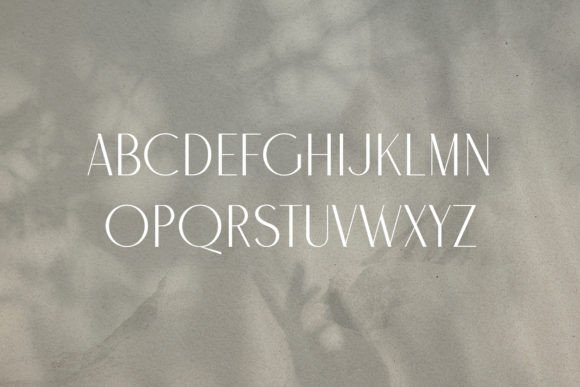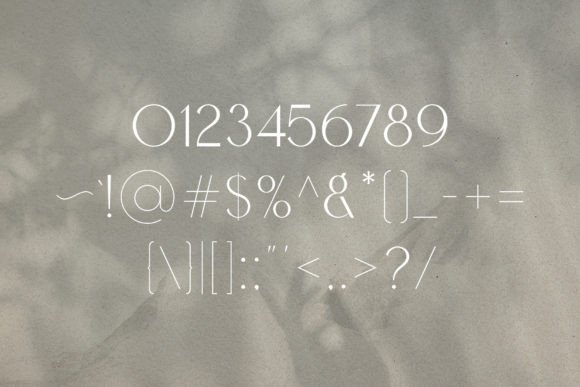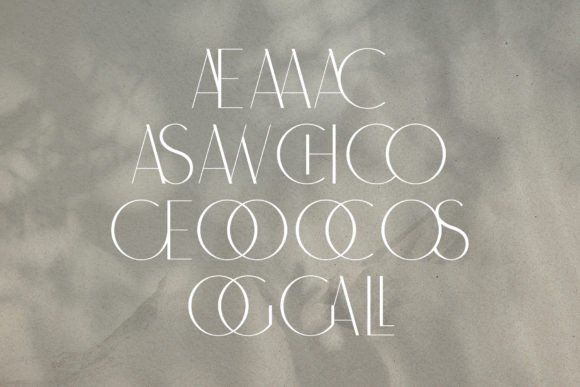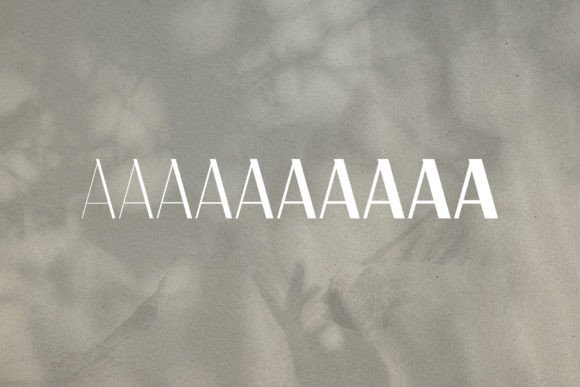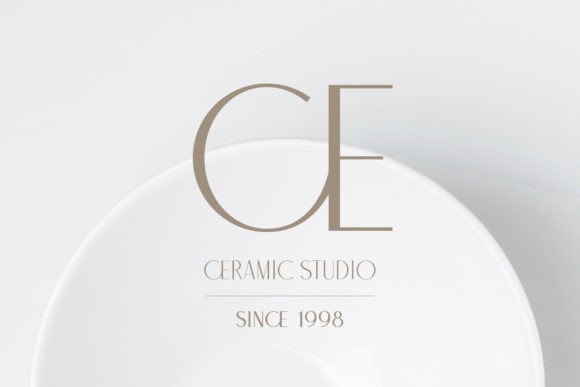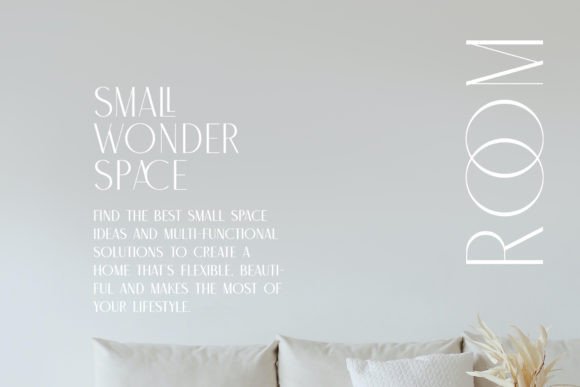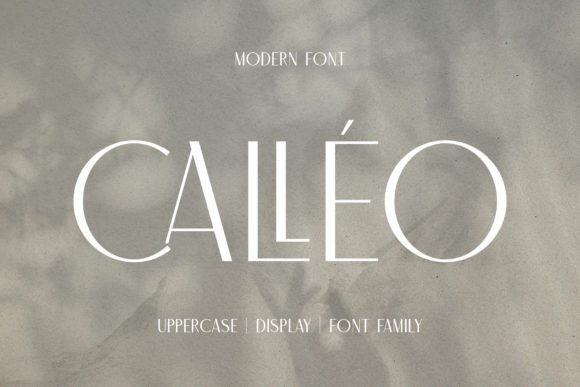
Calleo Font: A Minimalist and Feminine Typeface for Modern Designs
In the world of typography, font choices can make or break a design. For designers and crafters looking for a typeface that exudes elegance, sophistication, and a touch of femininity, Calleo Font is an excellent choice. This minimalist and contrasting font is perfect for creating stunning logos, short words, and even long sentences. In this article, we’ll dive into the characteristics, uses, and benefits of Calleo Font, and explore why it’s a great addition to any designer’s toolkit.
The Characteristics of Calleo Font
Calleo Font is a very minimalist and contrasting typeface, which means it features clean lines, simple shapes, and a high level of contrast between thick and thin strokes. This contrast gives Calleo its unique and elegant appearance, making it perfect for designs that require a touch of sophistication. The font’s minimalist nature also makes it highly versatile, allowing it to be used in a variety of design contexts, from logos and branding to body text and headlines.
Feminine and Strong Character
One of the standout features of Calleo Font is its feminine and strong character. The font’s curves and lines are carefully crafted to create a sense of elegance and refinement, making it perfect for designs that require a touch of femininity. At the same time, Calleo’s strong character ensures that it remains legible and impactful, even at smaller font sizes. This balance of femininity and strength makes Calleo an excellent choice for designers looking to create designs that are both beautiful and effective.
Uses of Calleo Font
Calleo Font is a highly versatile typeface that can be used in a variety of design contexts. Here are some of the most popular uses of Calleo Font:
- Logos and Branding: Calleo’s minimalist and contrasting nature makes it perfect for creating stunning logos and branding materials. Its elegance and sophistication ensure that it stands out in a crowded market, while its legibility ensures that it remains effective.
- Short Words and Headlines: Calleo’s clean lines and simple shapes make it perfect for short words and headlines. Its high contrast between thick and thin strokes creates a sense of drama and impact, making it perfect for grabbing attention.
- Long Sentences and Body Text: While Calleo is optimized for short words and headlines, it can also be used for long sentences and body text. Its legibility and readability ensure that it remains effective even at smaller font sizes.
Benefits of Using Calleo Font
So why should designers and crafters choose Calleo Font for their next project? Here are some of the benefits of using Calleo Font:
- Elegance and Sophistication: Calleo’s minimalist and contrasting nature gives it an elegance and sophistication that’s hard to find in other fonts.
- Versatility: Calleo’s highly versatile nature makes it perfect for a variety of design contexts, from logos and branding to body text and headlines.
- Feminine and Strong Character: Calleo’s balance of femininity and strength makes it perfect for designs that require a touch of elegance and refinement.
- Legibility and Readability: Calleo’s clean lines and simple shapes ensure that it remains legible and readable, even at smaller font sizes.
In conclusion, Calleo Font is a highly versatile and elegant typeface that’s perfect for designers and crafters looking to create stunning designs. Its minimalist and contrasting nature, combined with its feminine and strong character, make it an excellent choice for logos, short words, and long sentences. With its elegance, sophistication, and legibility, Calleo Font is a great addition to any designer’s toolkit.